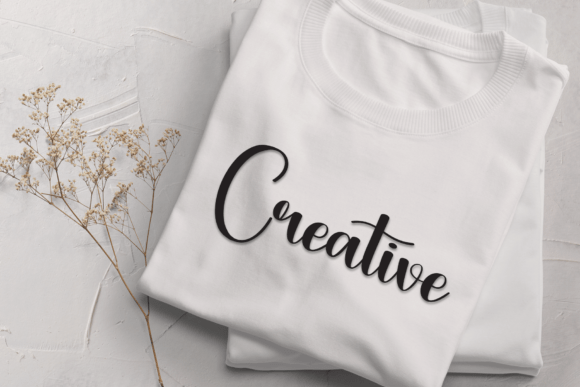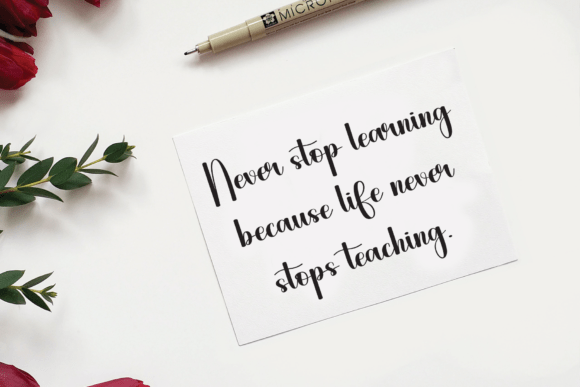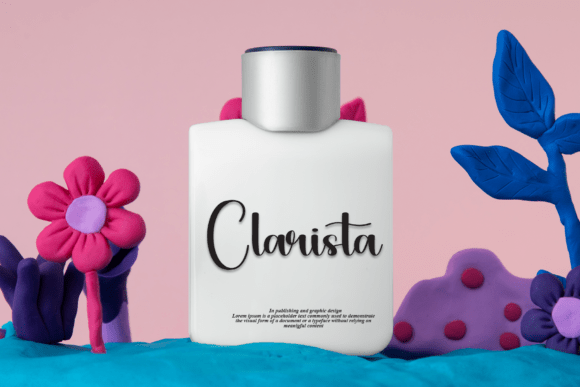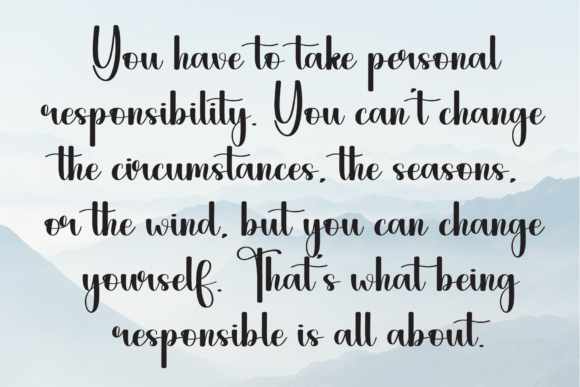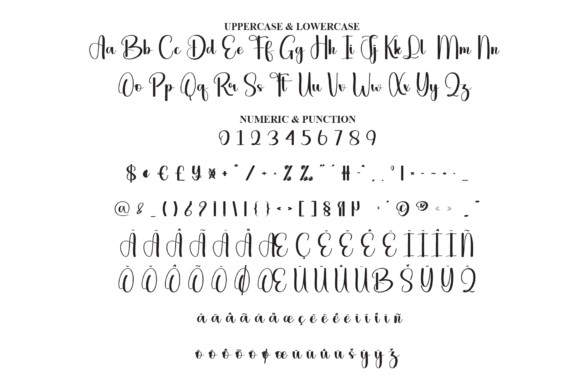
Introducing Disney Font: The Ultimate Elegant Script for Modern Designers
Are you a designer or a crafter looking for a font that combines elegance with a modern flair? Look no further than the Disney Font. This stylish handwritten script font is designed to bring warmth and sophistication to any project, making it ideal for branding, invitations, social media, and more.
What Makes Disney Font So Special?
Disney Font is a beautifully crafted typeface that boasts flowing strokes and organic curves, giving it a unique and refined touch. Its elegant design makes it perfect for adding a personal and sophisticated element to any project. Whether you’re working on a logo, invitation, or social media post, Disney Font is sure to make your design stand out.
Key Features of Disney Font
- Elegant Handwritten Script: Disney Font features a beautiful, handwritten script that adds a personal touch to any project.
- Flowing Strokes and Organic Curves: The font’s flowing strokes and organic curves give it a unique and refined look that’s perfect for elegant designs.
- Modern Flair: Disney Font combines traditional elegance with a modern twist, making it perfect for contemporary designs.
- Versatile: This font is ideal for a wide range of projects, including branding, invitations, social media, and more.
Uses for Disney Font
Disney Font is a versatile typeface that can be used in a variety of projects. Here are some ideas to get you started:
- Branding: Use Disney Font to create elegant logos, business cards, and letterheads that reflect your brand’s sophisticated personality.
- Invitations: Add a touch of elegance to your invitations, whether it’s for a wedding, birthday party, or baby shower.
- Social Media: Use Disney Font to create eye-catching social media posts, quotes, and graphics that showcase your brand’s personality.
- Packaging: Add a refined touch to your product packaging with Disney Font, perfect for luxury brands and high-end products.
Why Designers and Crafters Love Disney Font
Disney Font has quickly become a favorite among designers and crafters, and for good reason. Here are just a few reasons why:
- Easy to Read: Despite its elegant design, Disney Font is easy to read, making it perfect for body text and captions.
- Highly Versatile: Disney Font can be used in a wide range of projects, from digital designs to print materials.
- Unique and Memorable: Disney Font’s unique design makes it stand out from other fonts, ensuring your designs are memorable and impactful.
Tips for Using Disney Font
To get the most out of Disney Font, here are a few tips to keep in mind:
- Pair with Simple Fonts: Pair Disney Font with simple fonts to create a striking contrast and make your design stand out.
- Experiment with Colors: Disney Font looks great in a variety of colors, so don’t be afraid to experiment and find the perfect hue for your design.
- Use it Sparingly: While Disney Font is beautiful, it can be overwhelming if used excessively. Use it sparingly to create a lasting impact.
Disney Font is a stylish and elegant handwritten script font that’s perfect for designers and crafters looking to add a touch of sophistication to their projects. With its flowing strokes, organic curves, and modern flair, this font is sure to make your designs stand out. Whether you’re working on branding, invitations, social media, or more, Disney Font is the perfect choice.